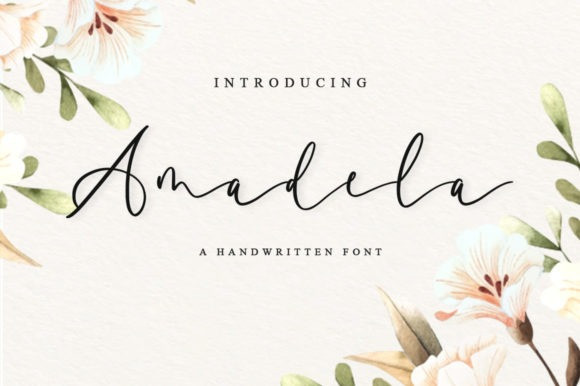
Amadela Font
Amadela Handwritten Font is a flowing, delicate and romantic script font. It will add a luxury spark to any design project that you wish to create! Amadela is also PUA encoded which means you can access all of the amazing glyphs and ligatures with ease!